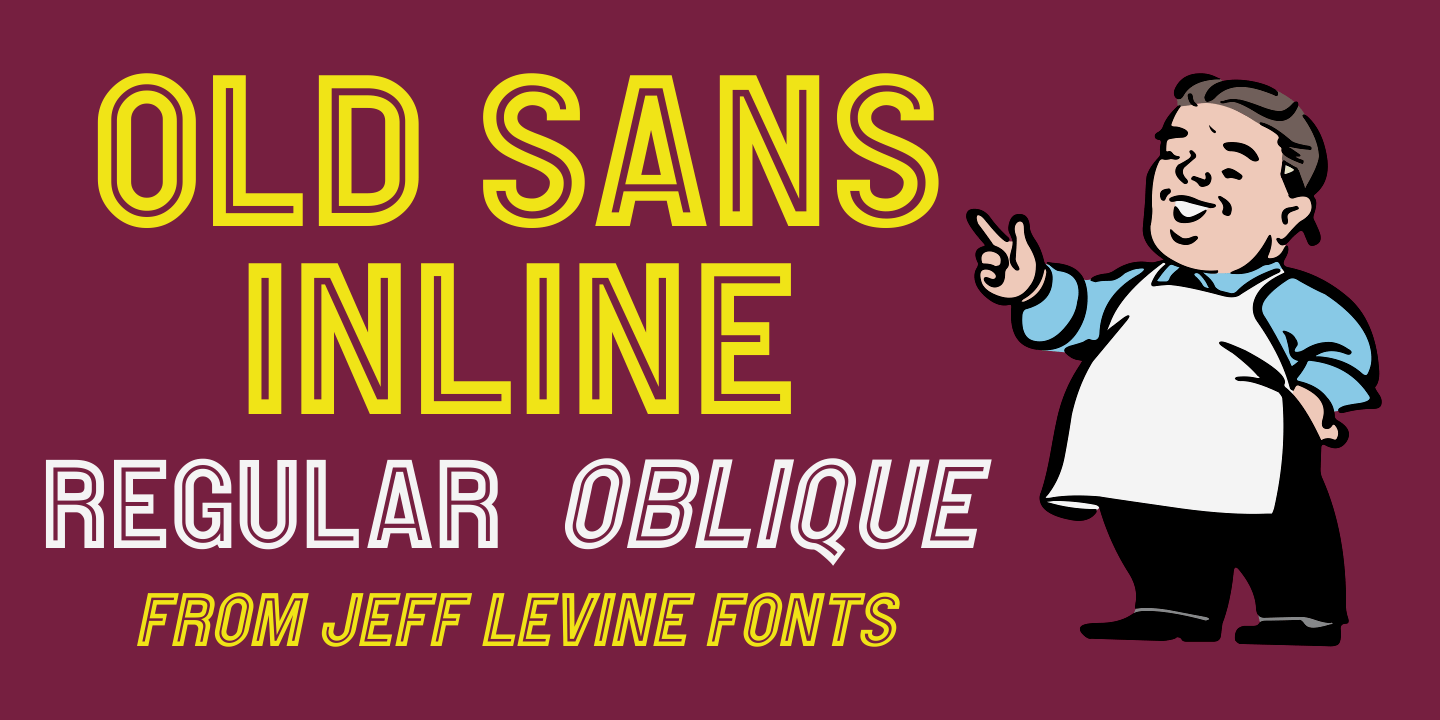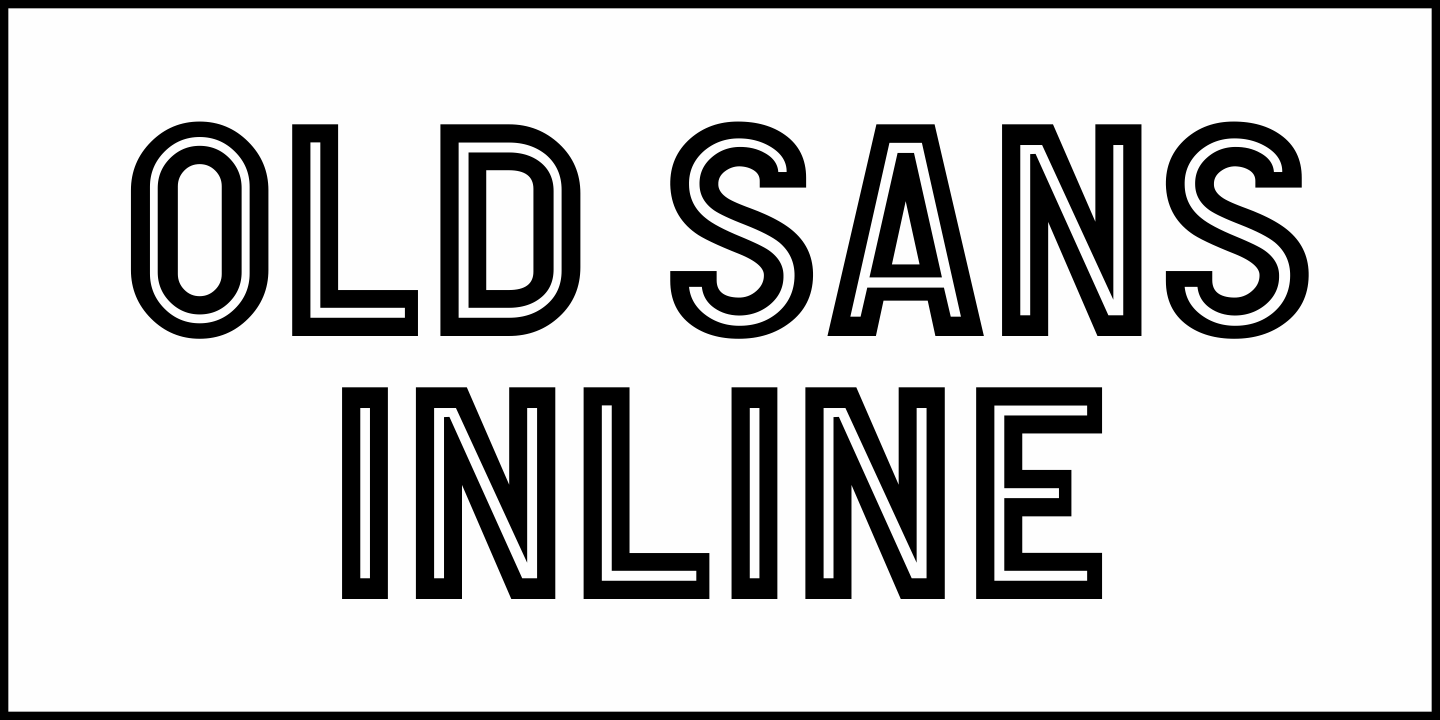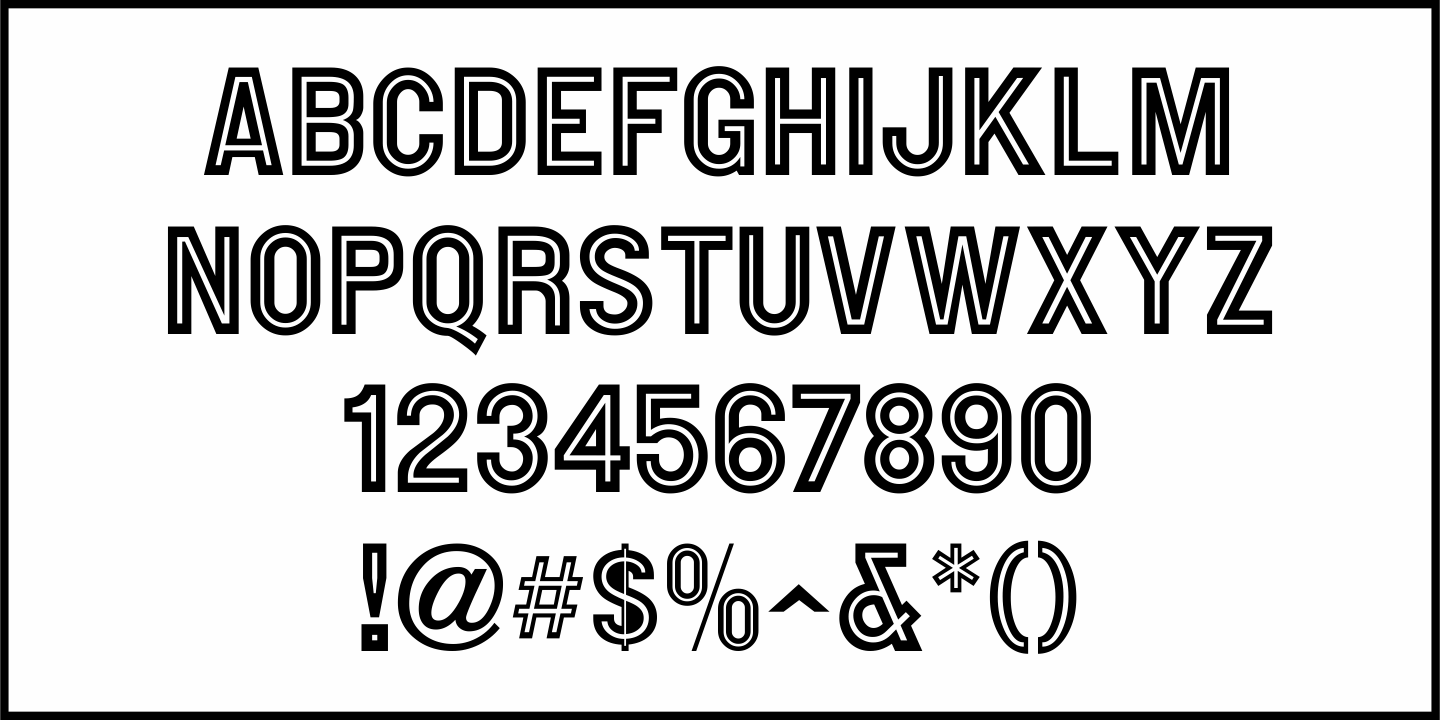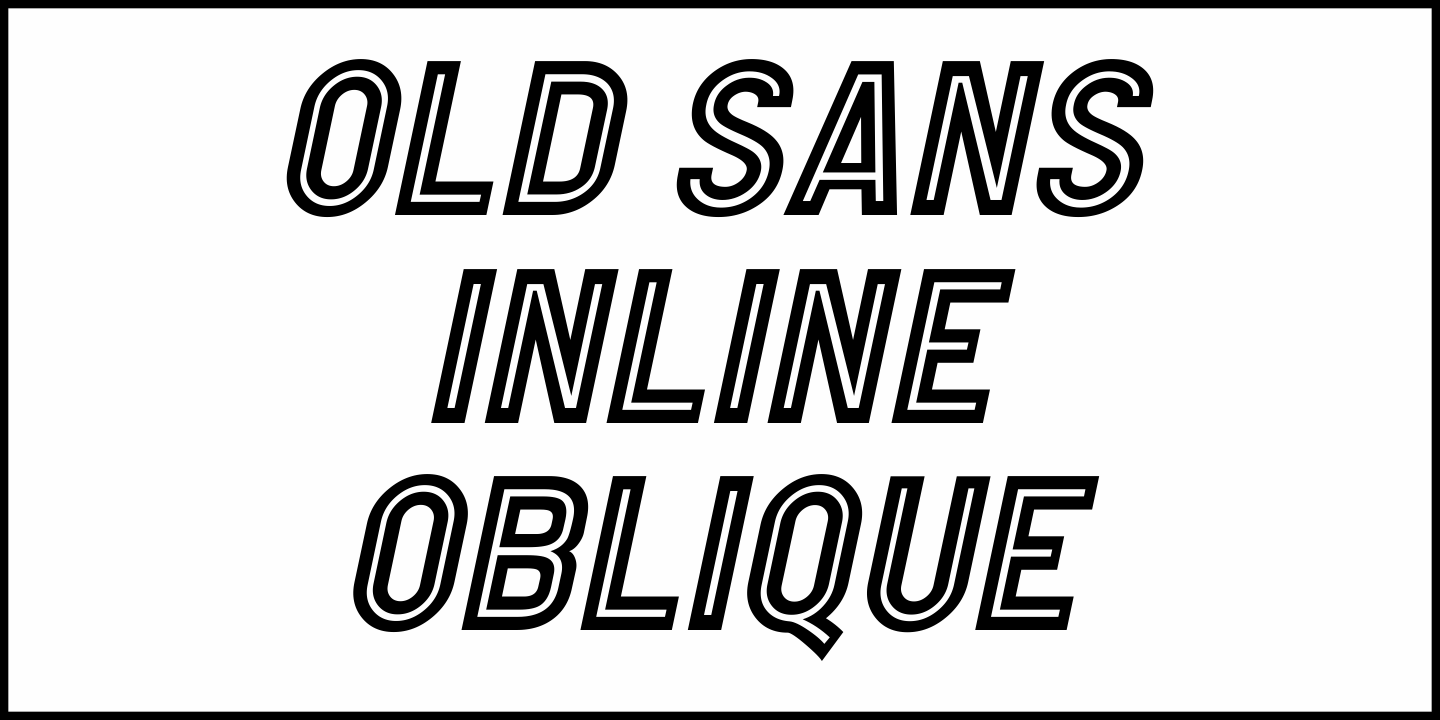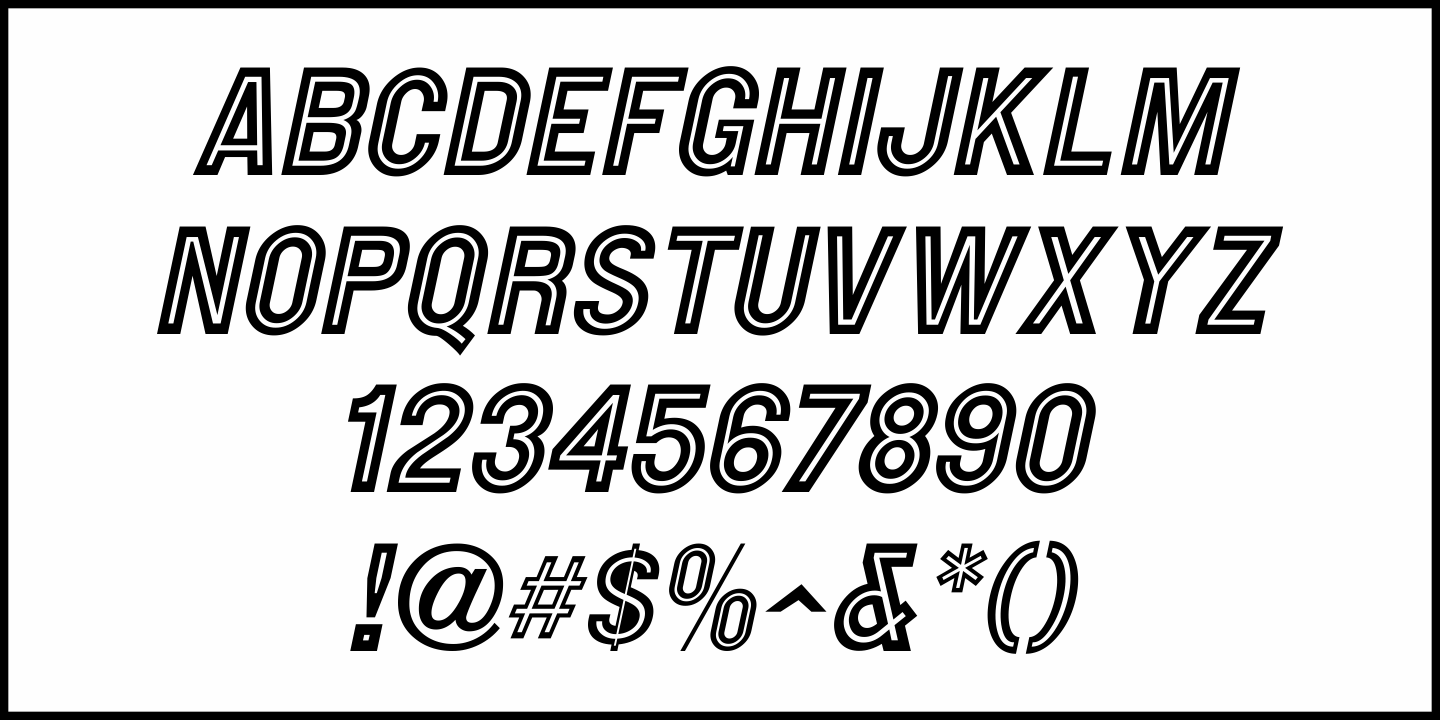
Old Sans Inline
Various ads in issues of Moving Picture World from 1915 utilized a bold sans serif font with an engraved inline. This classic metal typeface has be redrawn digitally as Old Sans Inline JNL, and is available in both regular and oblique versions.